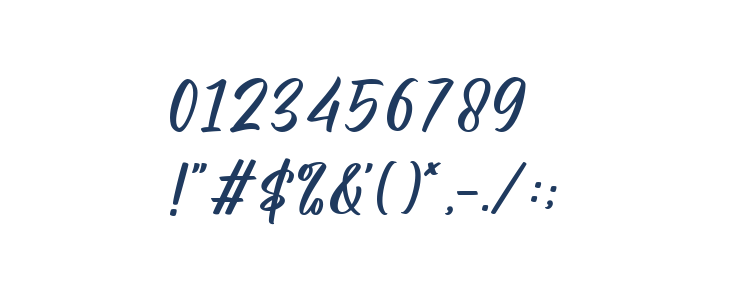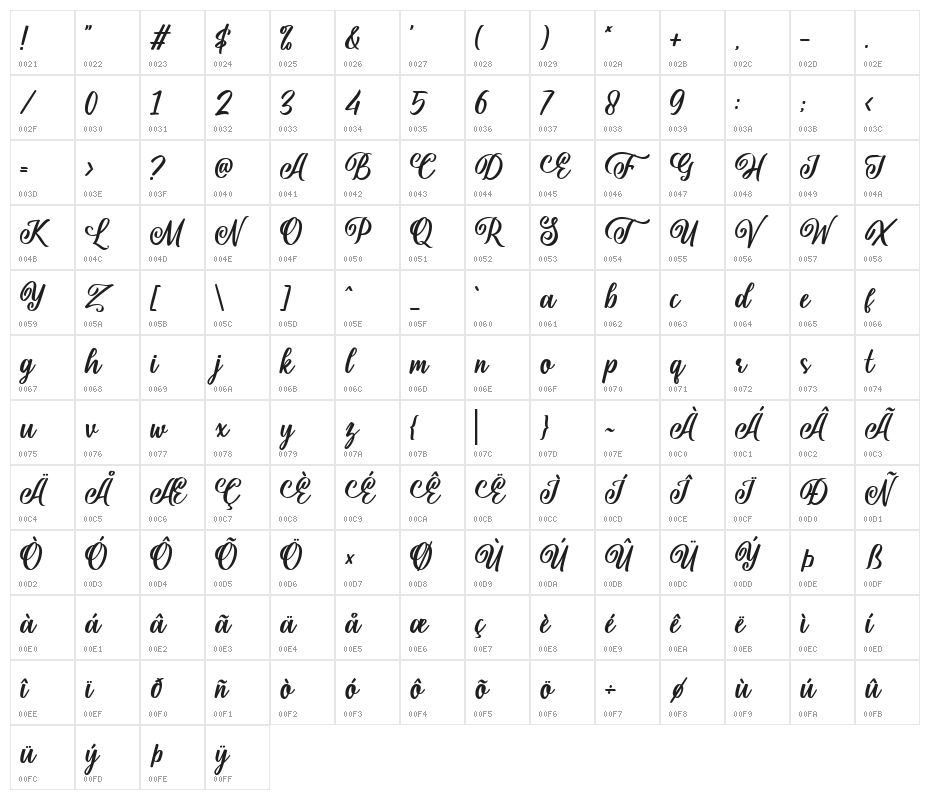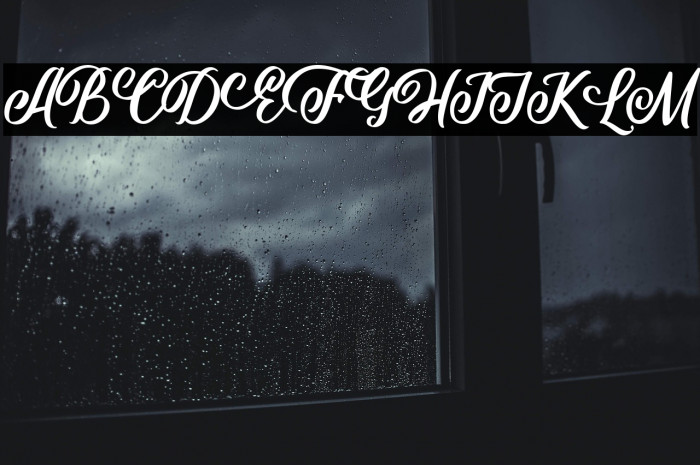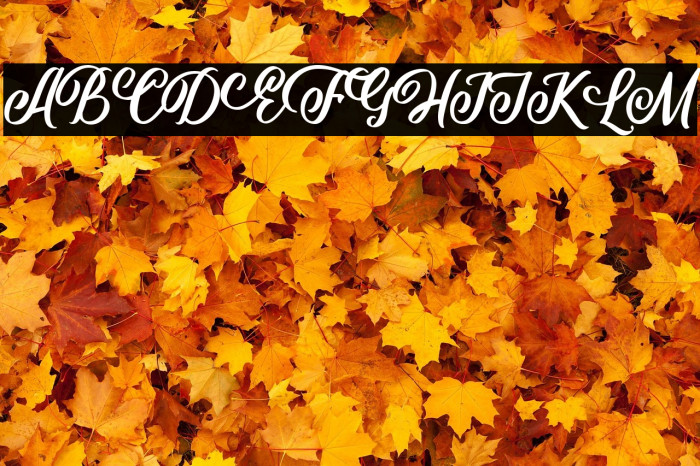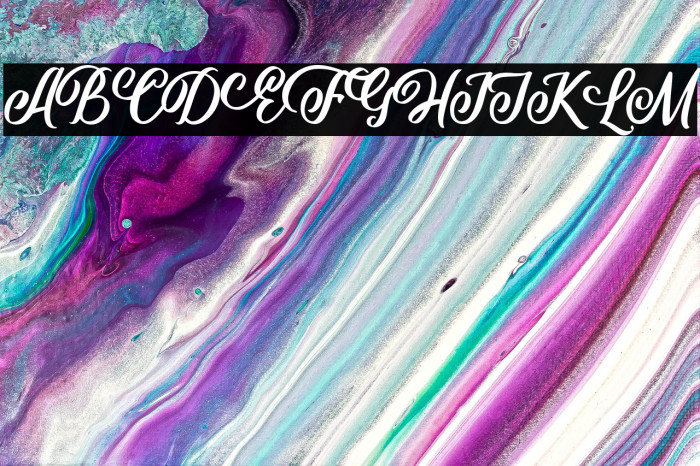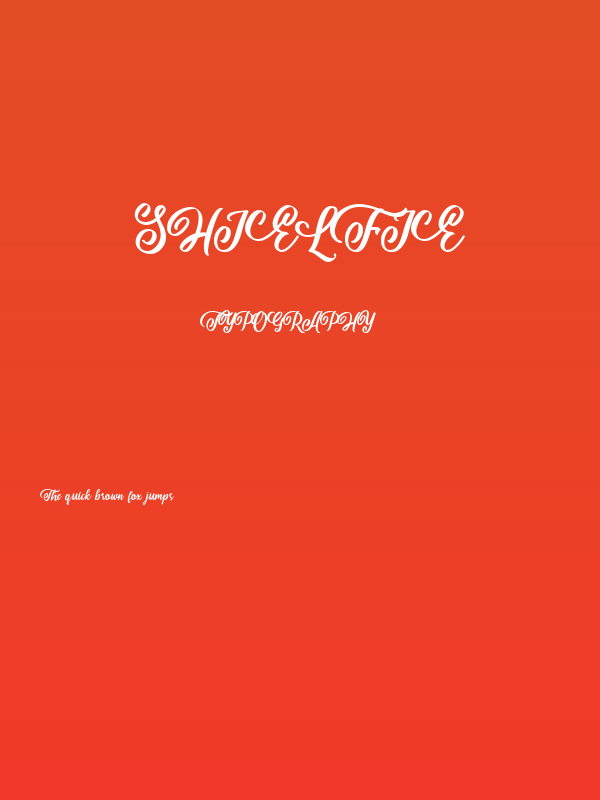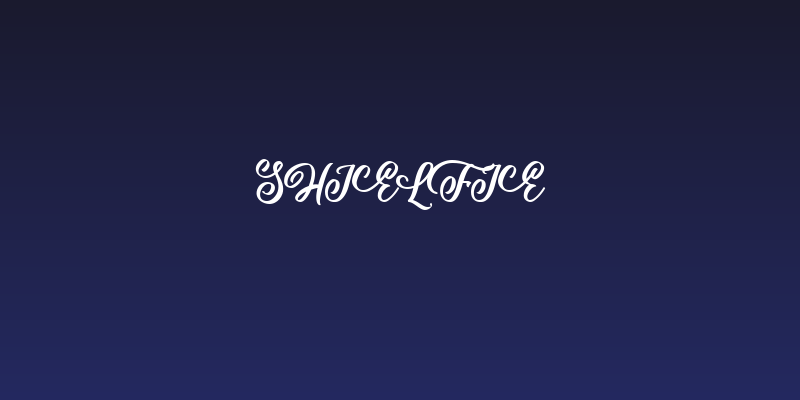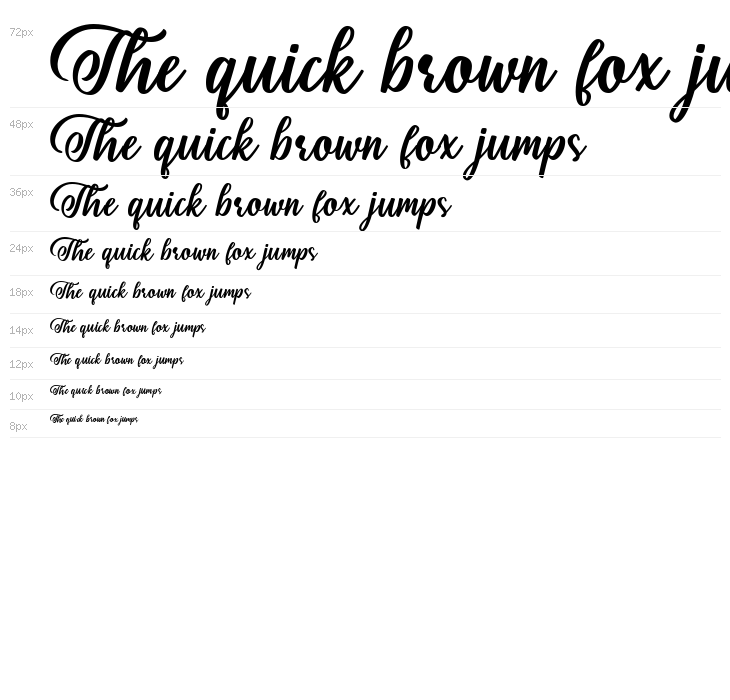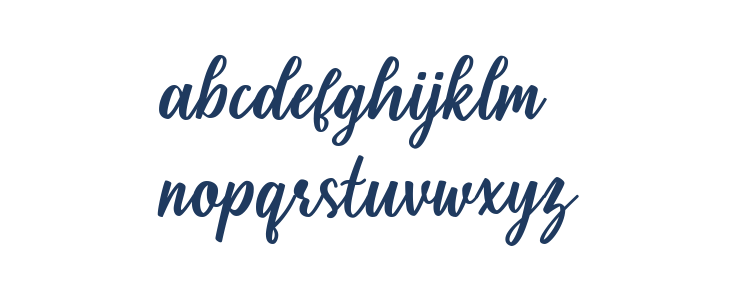
Shielfie Font
Shielfie Description
This font features a flowing, cursive style with elegant, sweeping curves and a handwritten feel. The uppercase letters are ornate, with intricate loops and flourishes that give them a sophisticated appearance. The lowercase letters maintain a consistent style, with smooth connections between characters, enhancing the script's fluidity. Numbers and special characters are designed to match the overall aesthetic, ensuring a cohesive look across all text elements. The font's bold strokes and high contrast between thick and thin lines add to its dramatic and eye-catching appeal.
Overall StyleElegant, Decorative
Use CaseLogos, Invitations, Decorative text
Proposed ProjectsIdeal for wedding invitations, greeting cards, branding, and elegant logo designs.